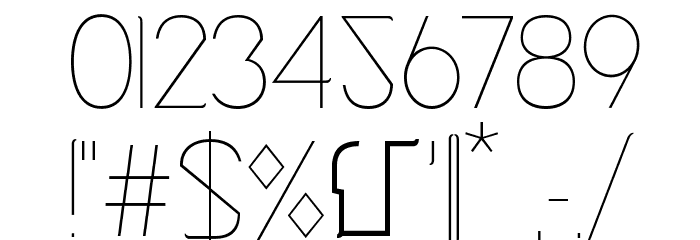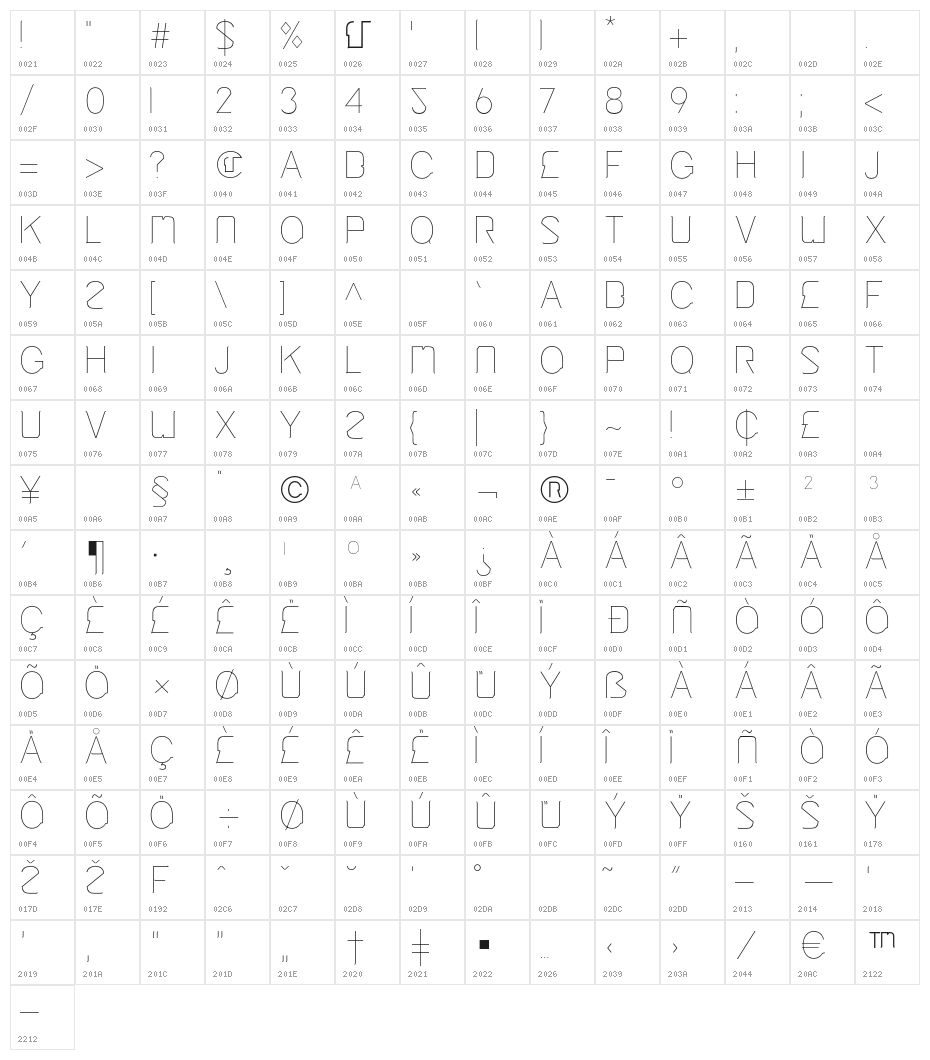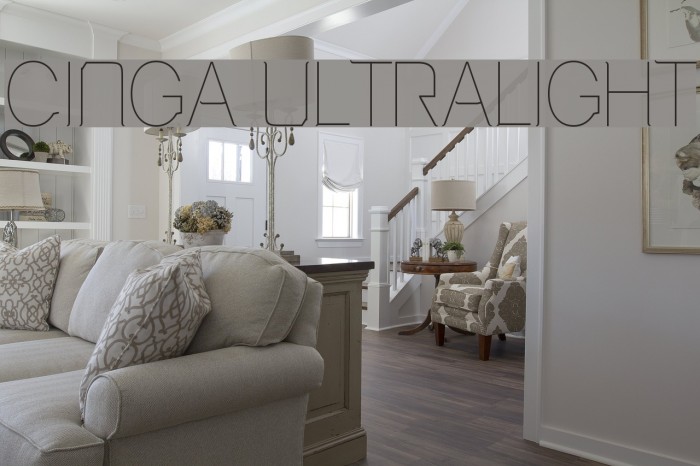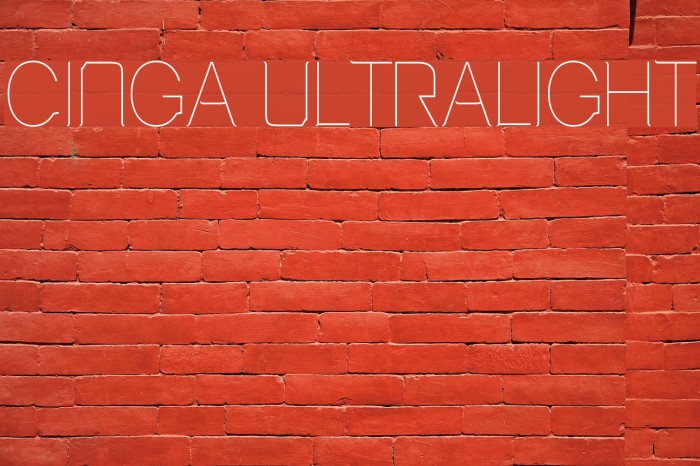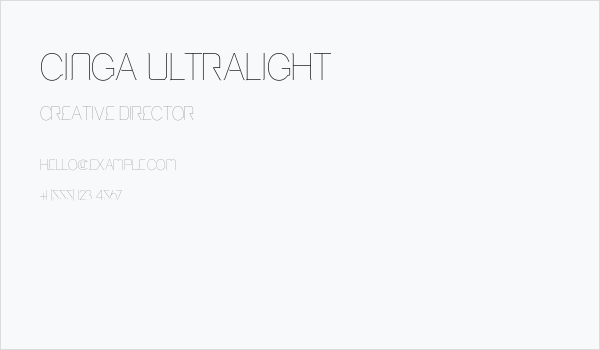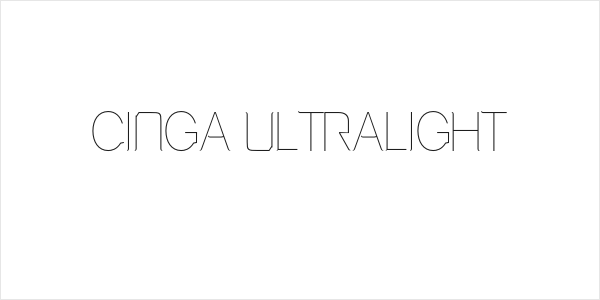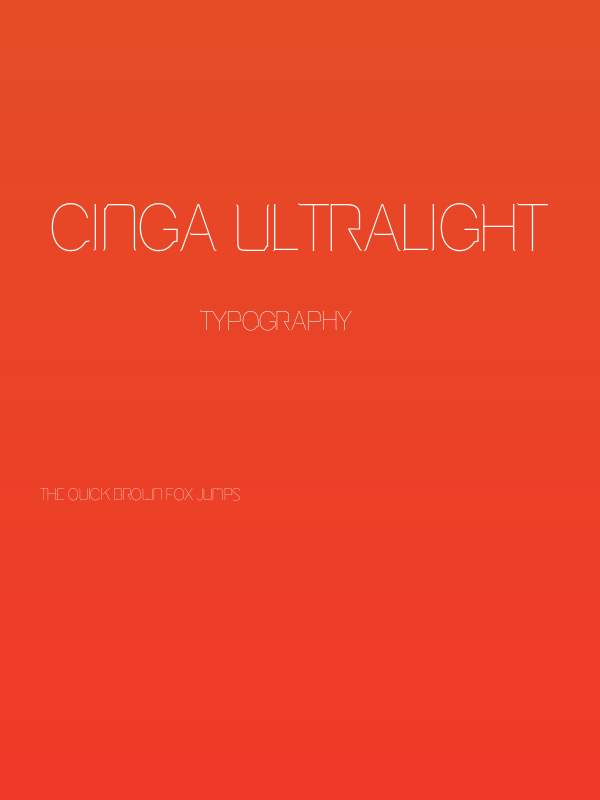
Cinga UltraLight Font
Cinga UltraLight Description
This font features an ultra-lightweight design with a modern and geometric aesthetic. The characters are constructed with clean, straight lines and sharp angles, giving it a futuristic and minimalistic appearance. The uppercase and lowercase letters share a consistent style, with a focus on simplicity and clarity. The numerals are equally streamlined, maintaining the overall sleek look of the typeface. Special characters are designed with the same geometric precision, ensuring uniformity across all glyphs. This font is ideal for projects that require a contemporary and sophisticated touch, where readability and style are equally important.